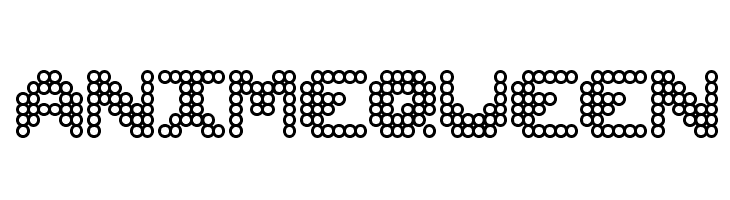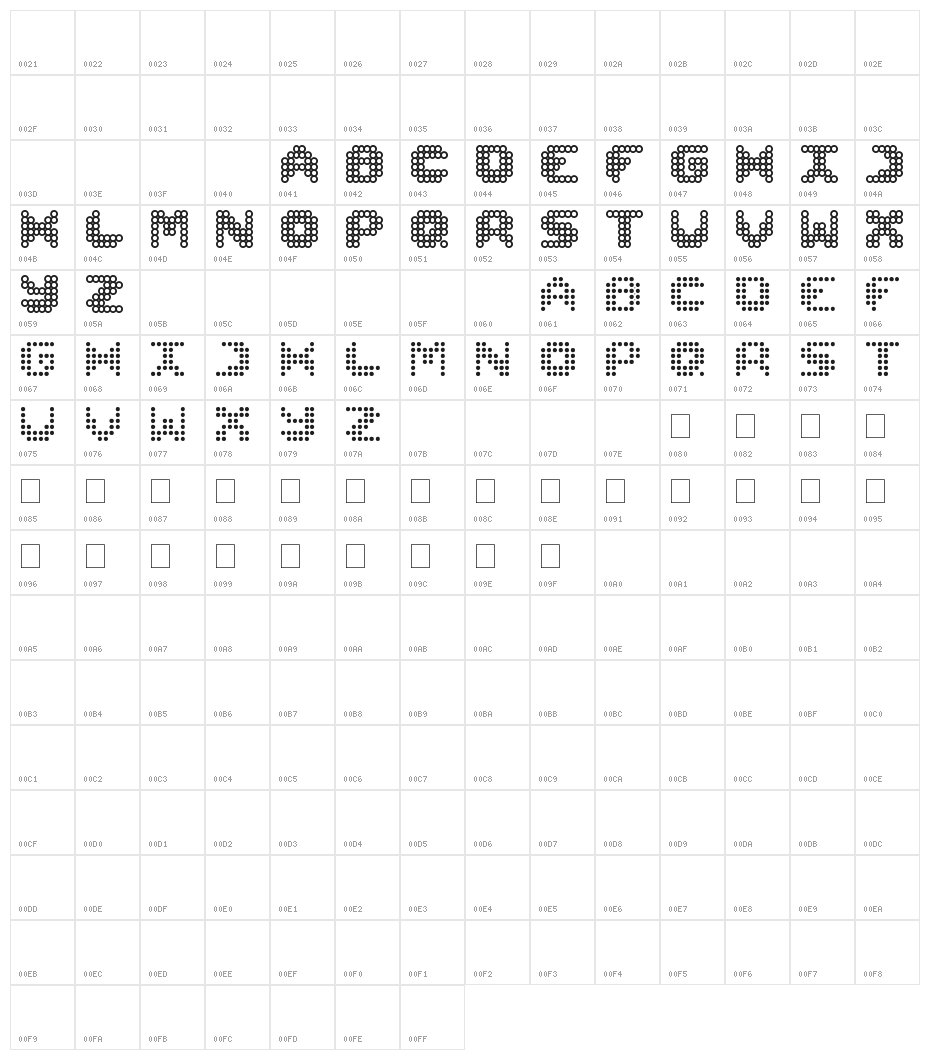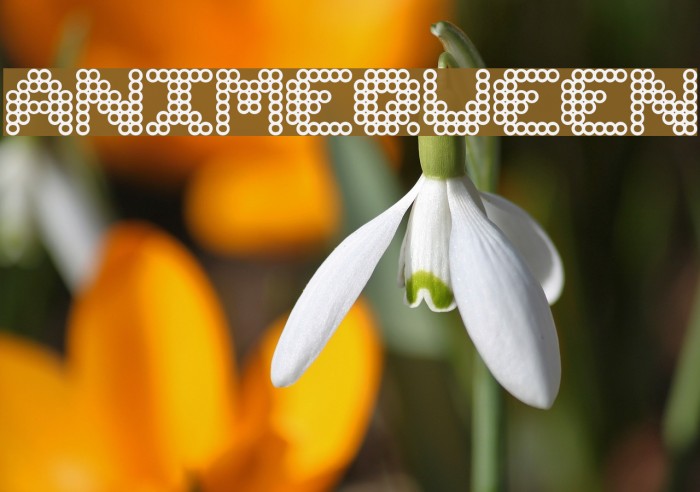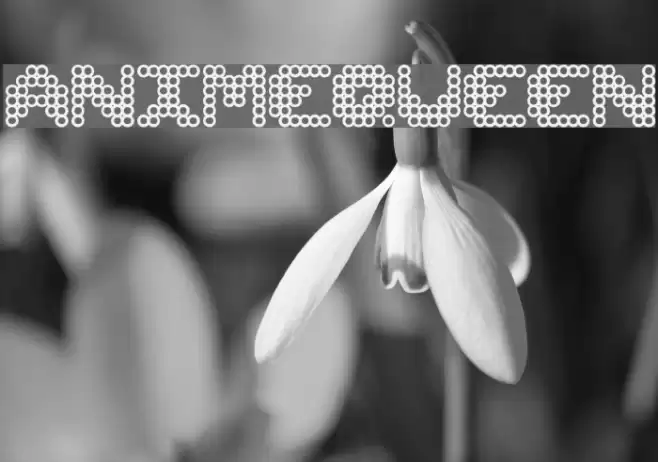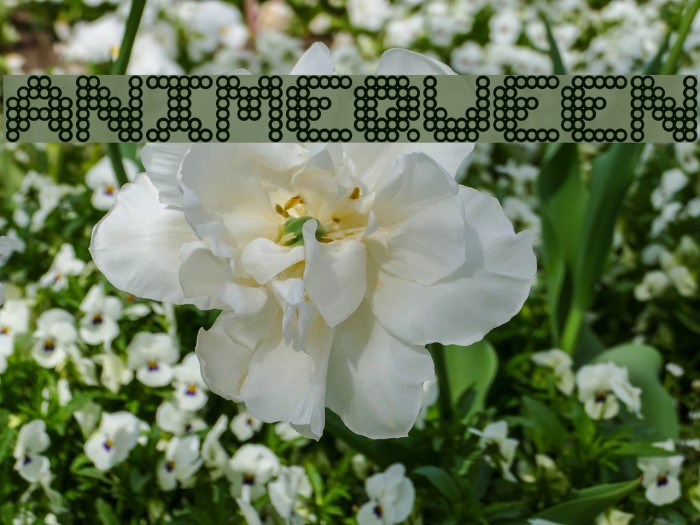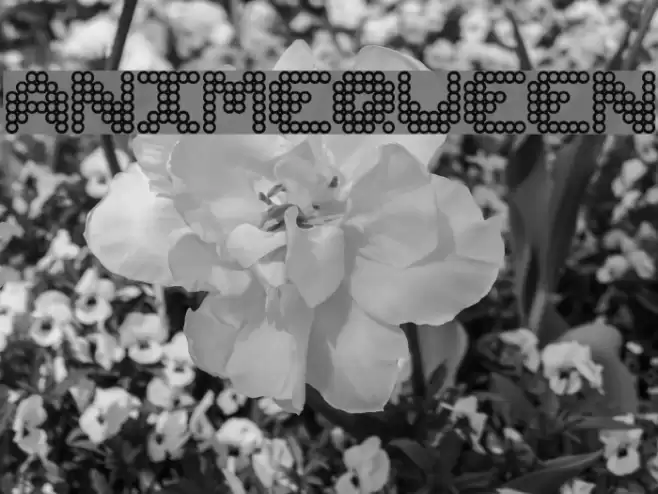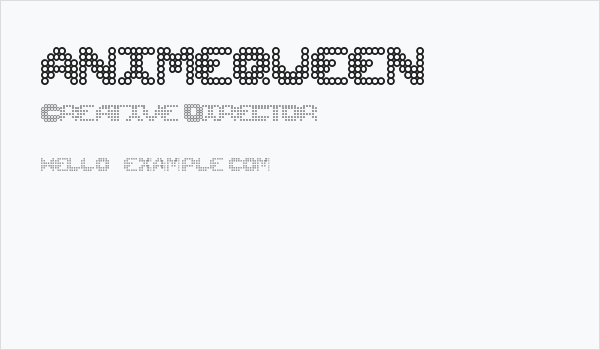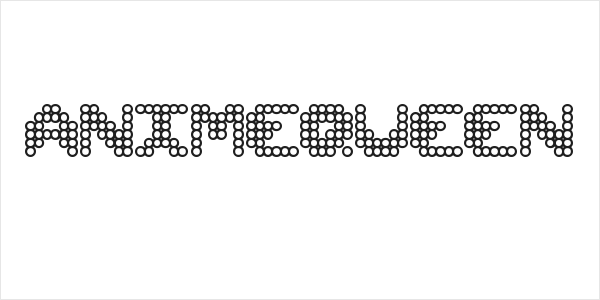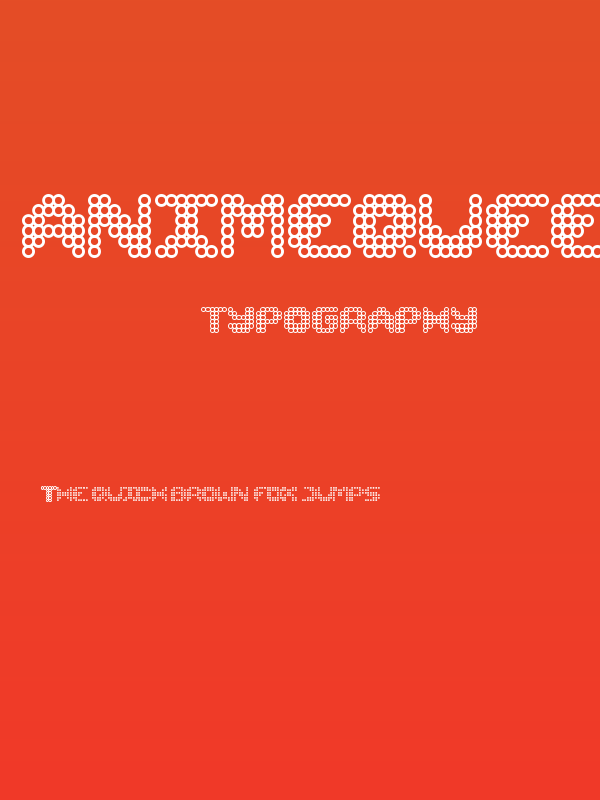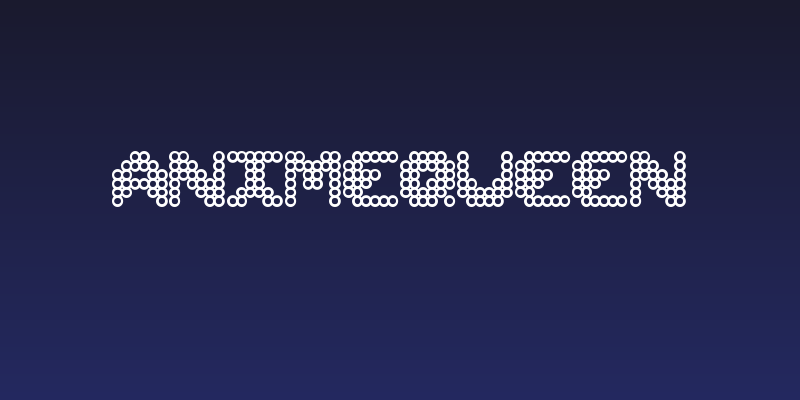
ANIMEQUEEN Font
ANIMEQUEEN Description
This font features a unique design composed entirely of small, evenly spaced dots forming each character. The letters are constructed in a grid-like pattern, giving a digital and modern aesthetic. The consistent use of dots creates a uniform appearance, while the rounded shapes of the letters add a playful and approachable feel. The font maintains a consistent height across all characters, ensuring readability despite its unconventional style. The spacing between the dots is precise, contributing to the overall clarity and legibility of the text. This font is particularly eye-catching and would stand out in any design project.
| Proposed Projects | Ideal for digital art projects, tech-themed designs, modern posters, and creative branding. |